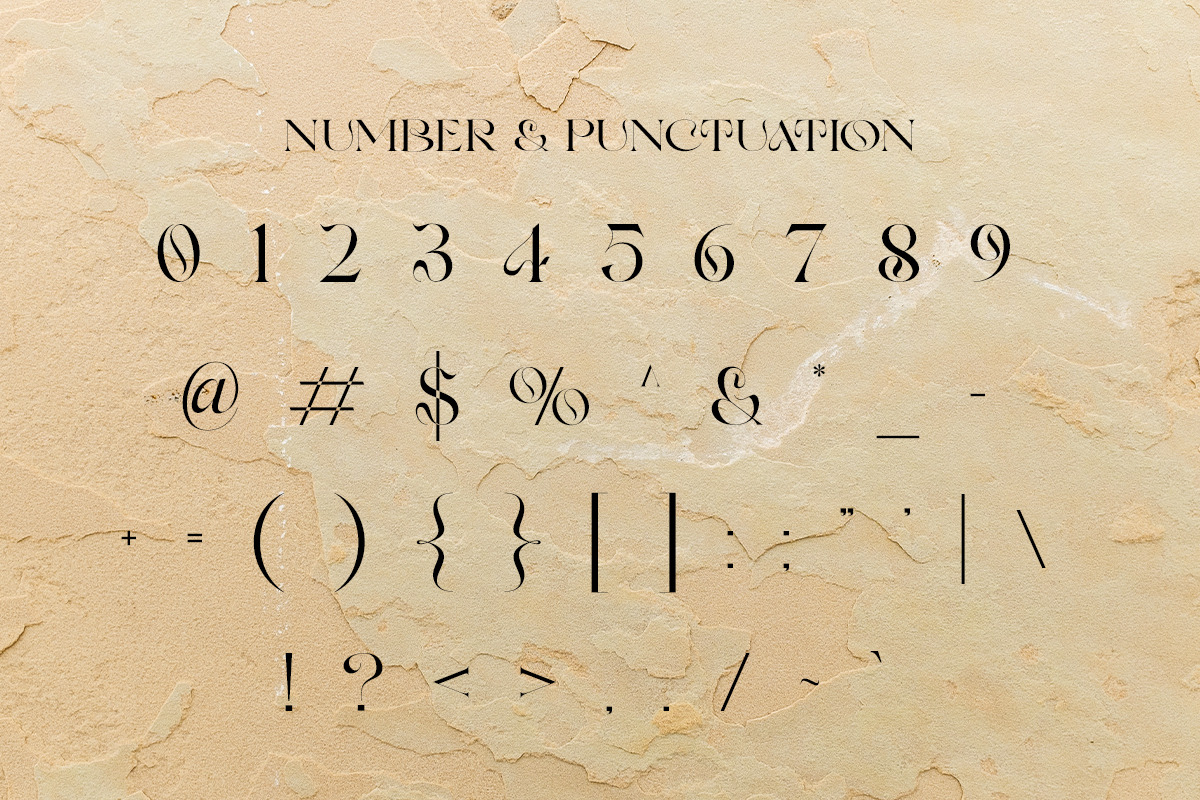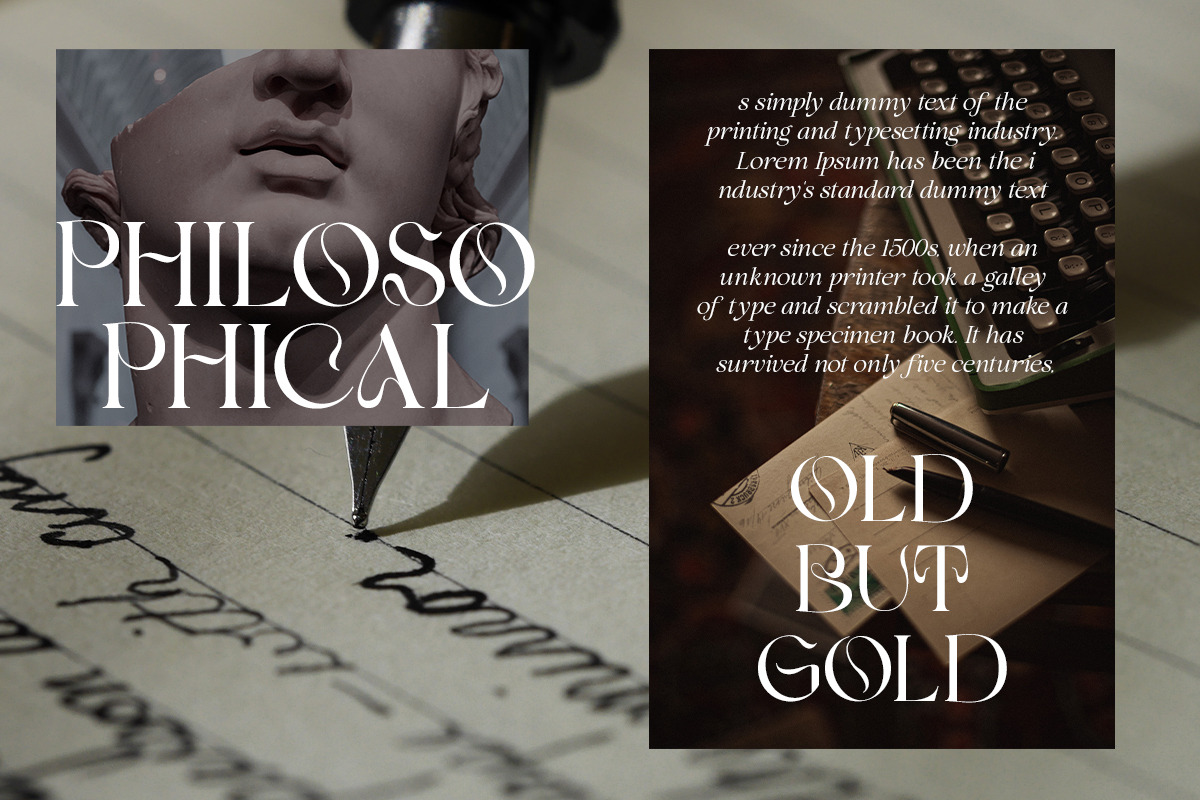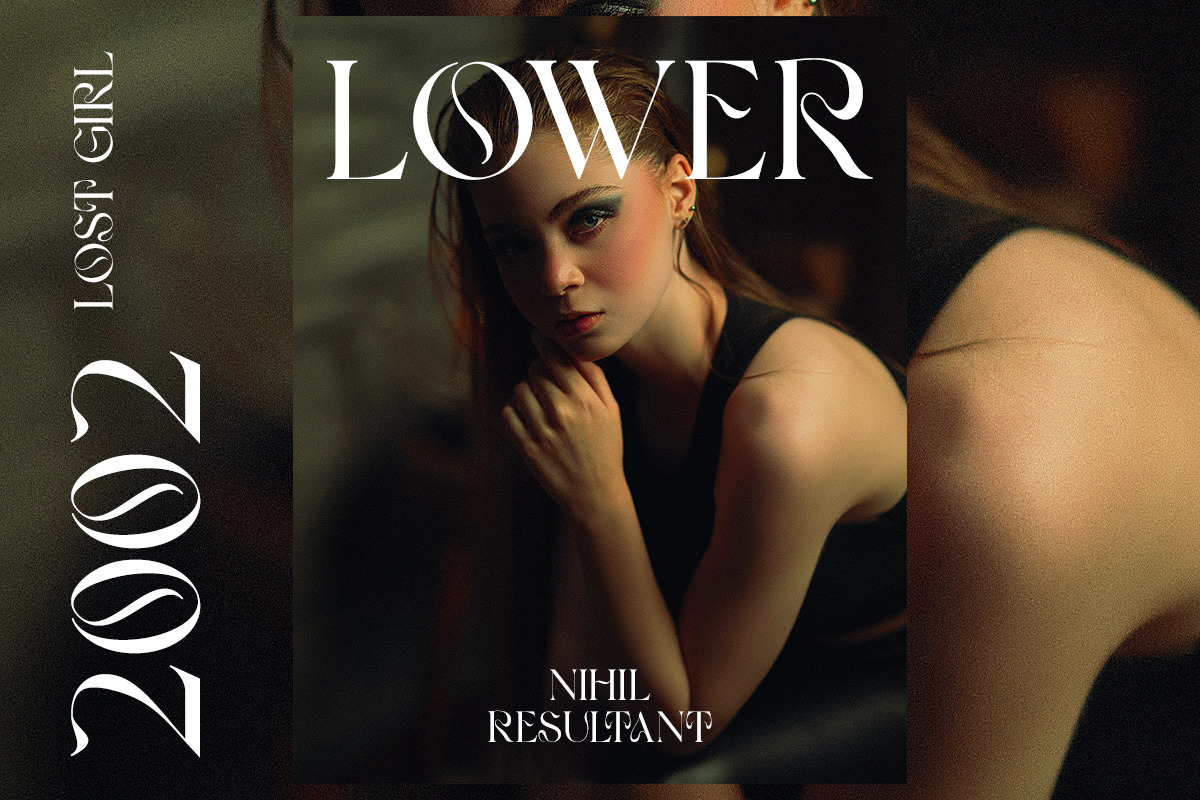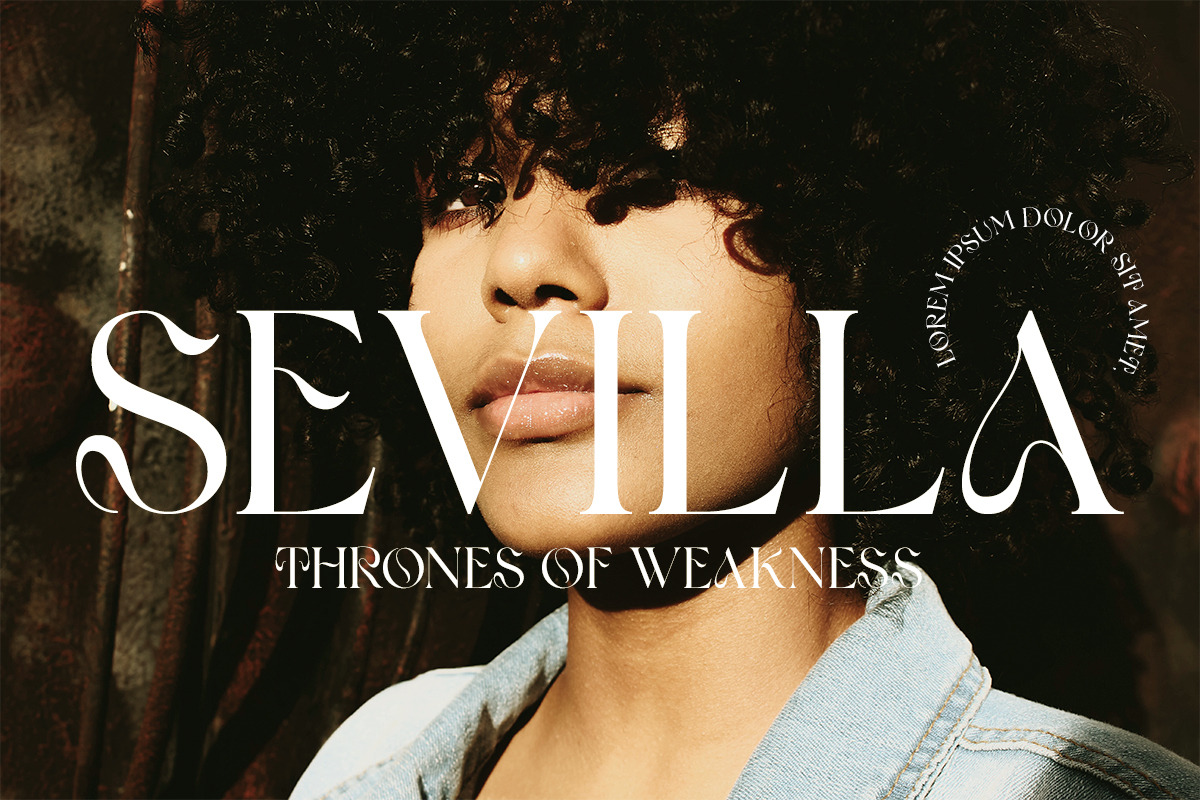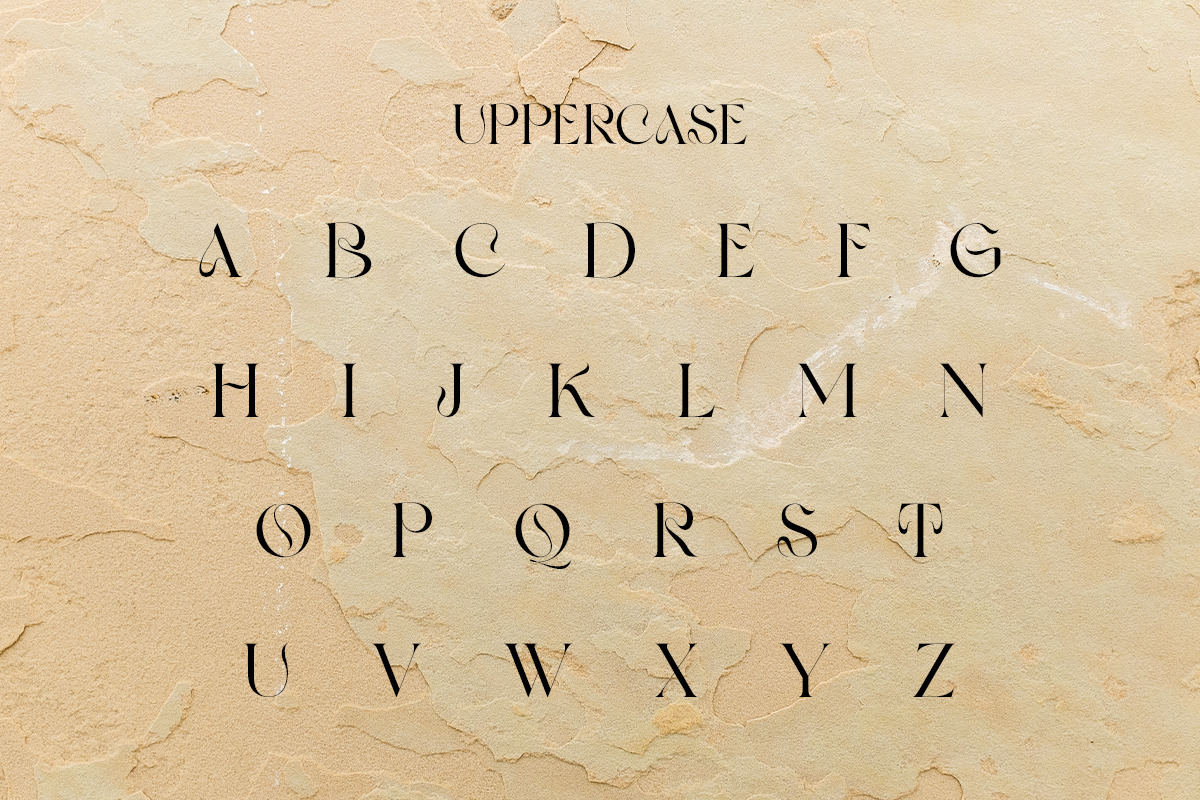
Tears of Joy | Display Serif
Tears of Joy fonts includes uppercase letters, numerals, a large range of punctuation. Serif font with modern style. Created for poster, web design, branding, illustrations, badges and some other works.